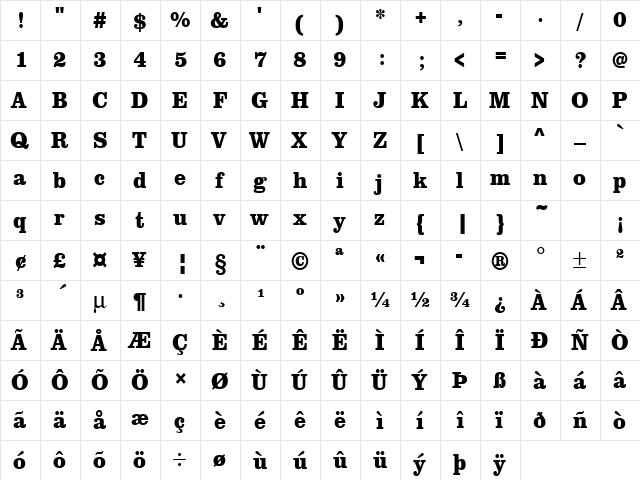
URWClarendonTExtNar Bold Font Preview
URWClarendonTExtNar Bold
Design Context for URWClarendonTExtNar Typeface
URWClarendonTExtNar features prominent, blocky serifs that give it a confident, grounded presence — equally at home in editorial settings and bold branding work. The heavy weight commands attention and anchors typographic hierarchies.
Works well in editorial design, news publishing, impactful branding, and poster typography.
Pro Tip: Try URWClarendonTExtNar set tight in headlines for a classic editorial feel. Its slab serifs create strong horizontal rhythm that anchors a page layout.